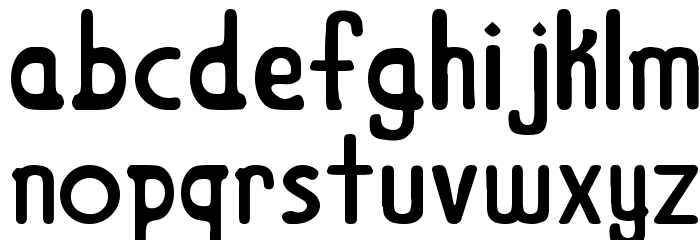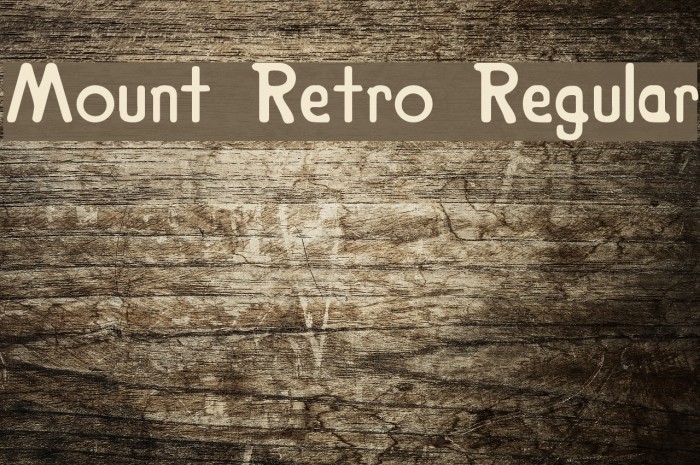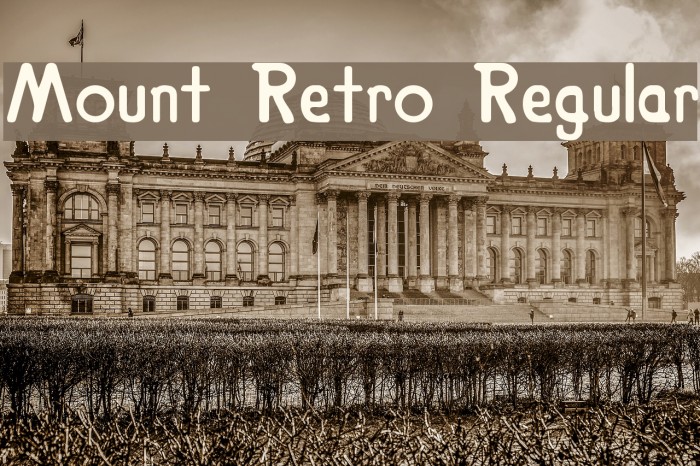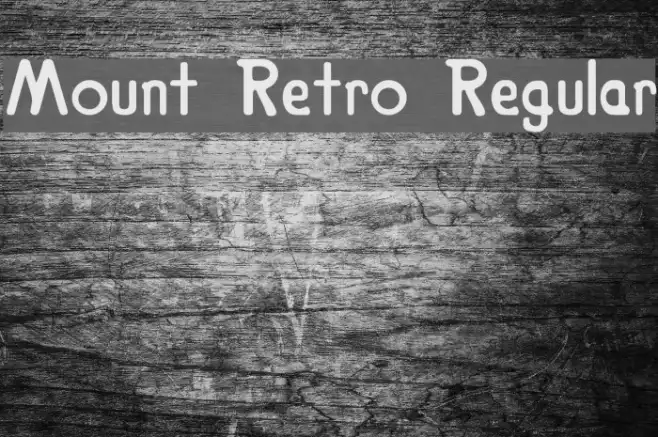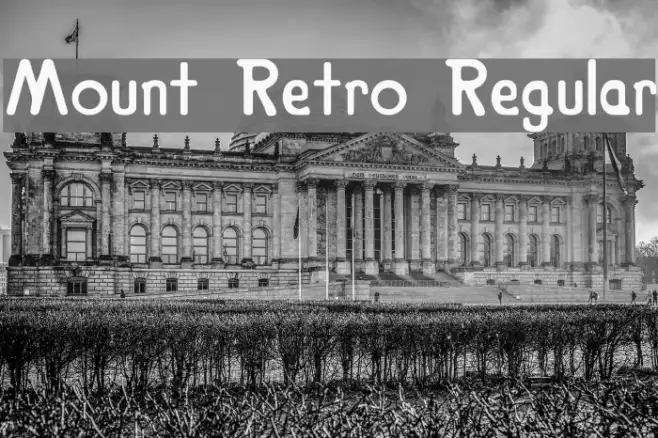
Mount Retro Regular Font
This font features a playful and rounded style, characterized by its smooth curves and slightly thick strokes. The letters have a consistent weight, giving it a bold appearance without being overwhelming. The design is modern yet has a retro feel, making it versatile for various creative projects. The characters are well-spaced, ensuring readability while maintaining a unique aesthetic. Its rounded edges and uniform stroke width contribute to a friendly and approachable look, suitable for both digital and print media.
A playful, rounded font with a modern retro feel and consistent weight.
- Proposed Projects: Ideal for children's books, playful branding, retro-themed designs, and casual invitations.
- Overall Style: Retro, Playful